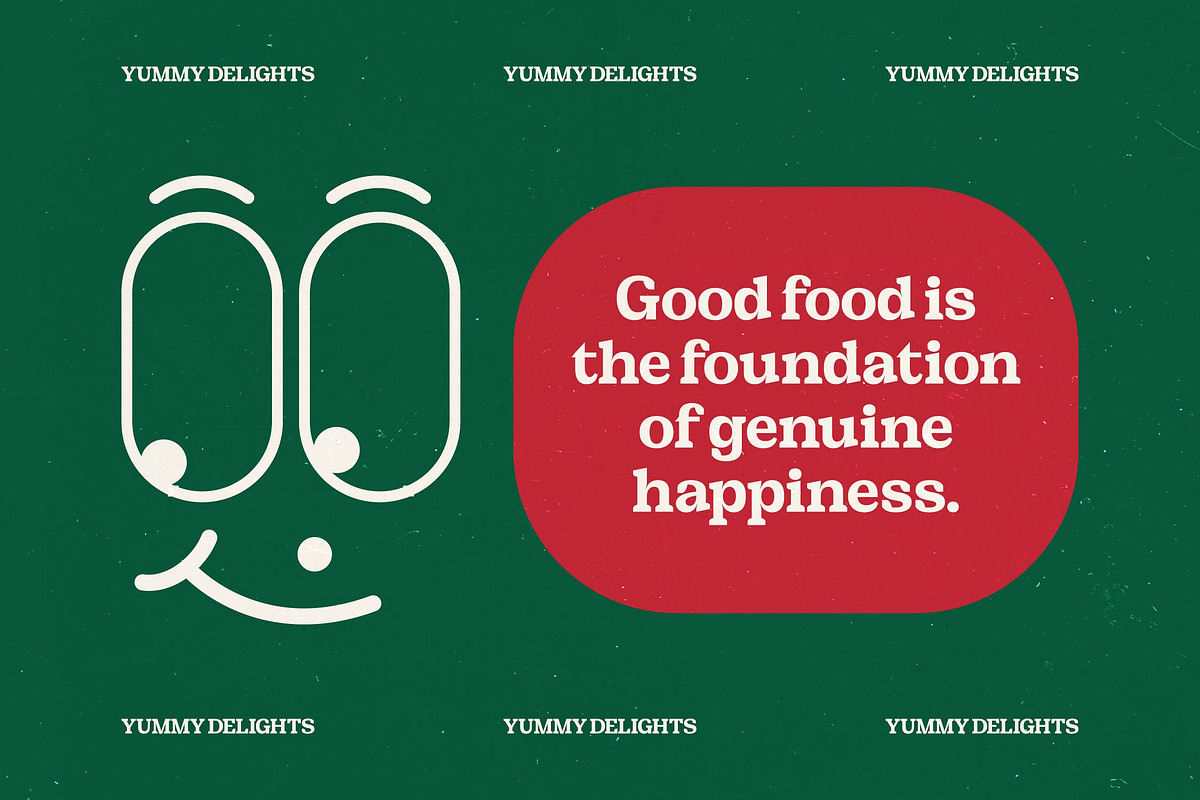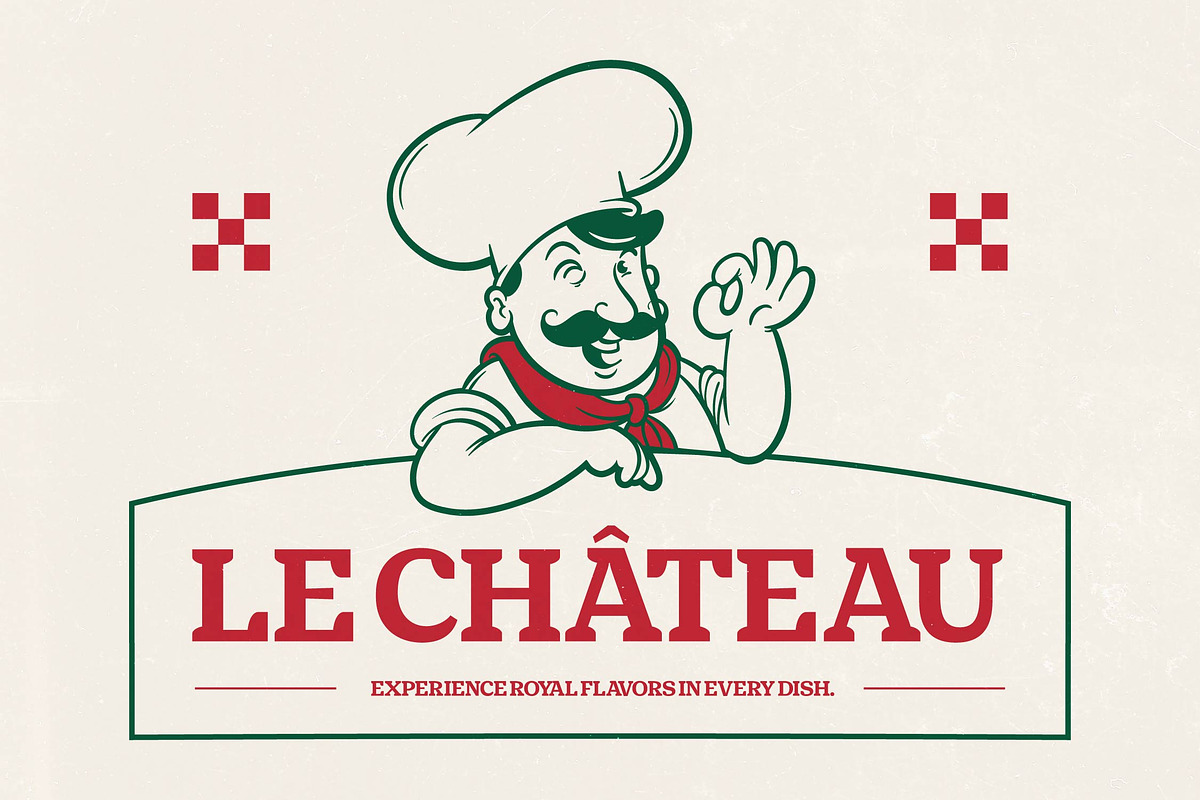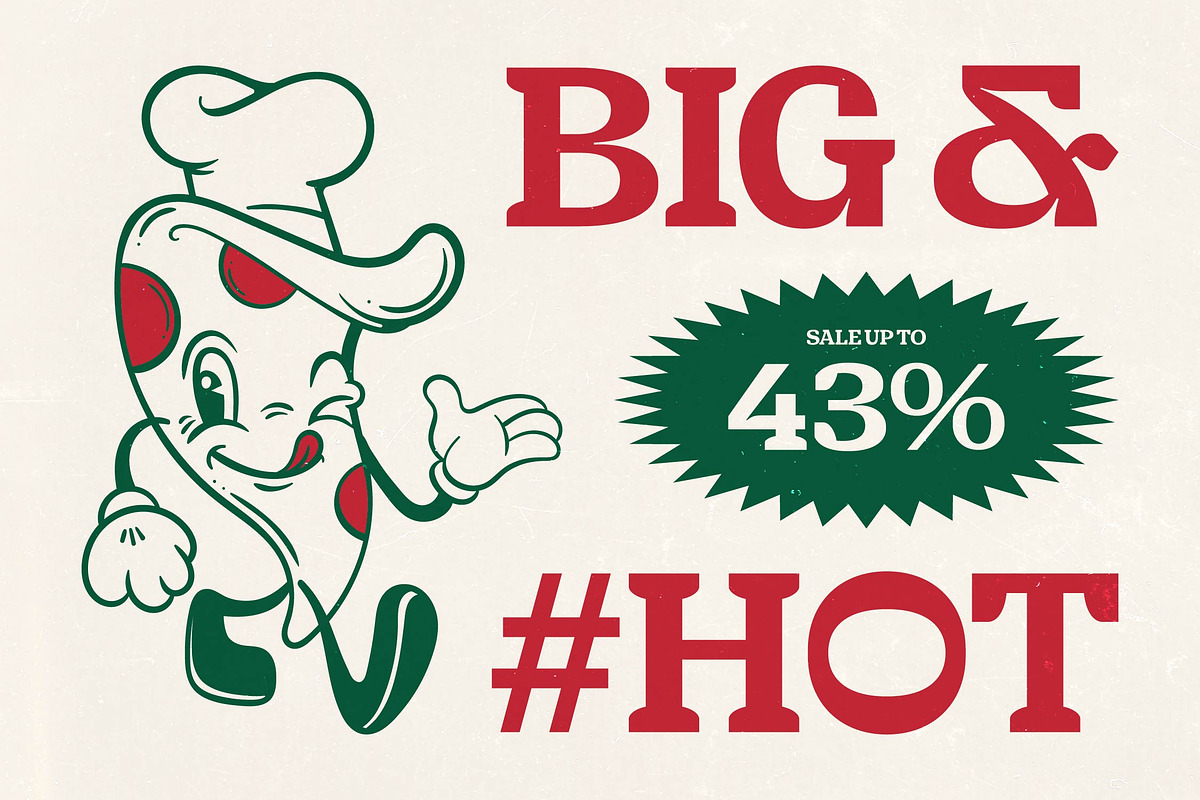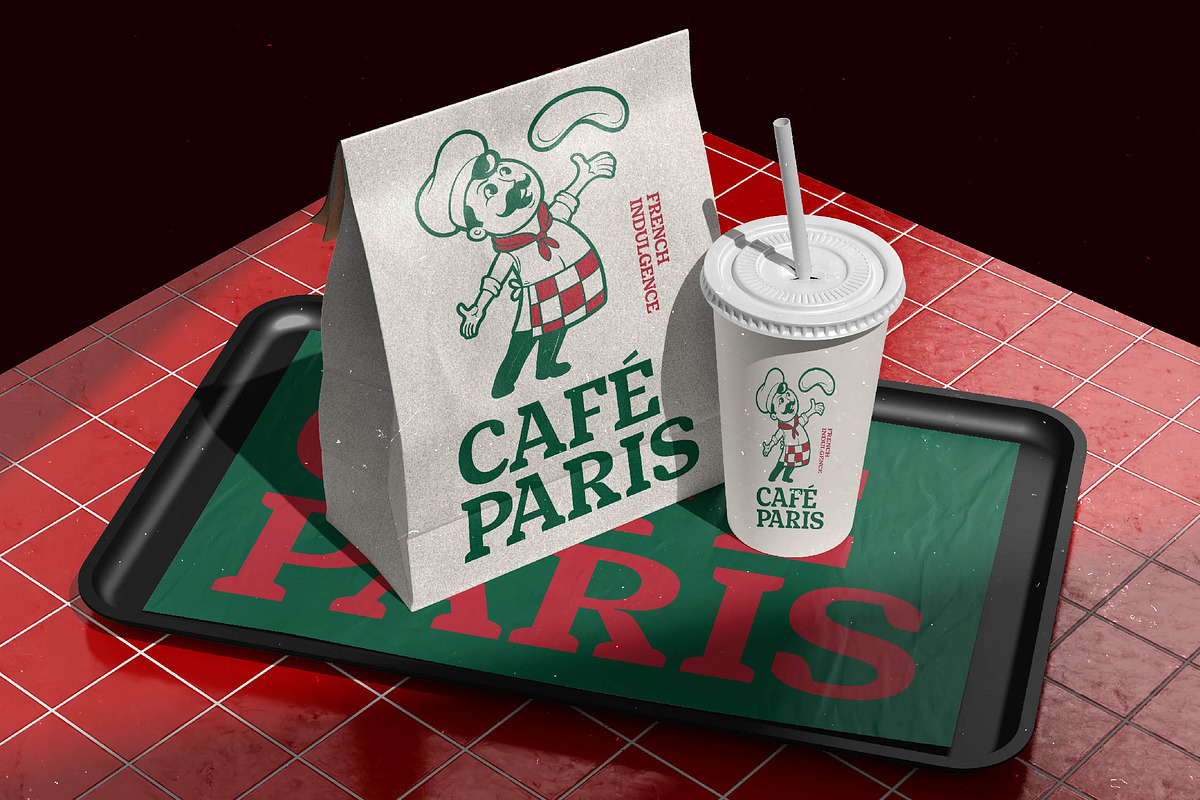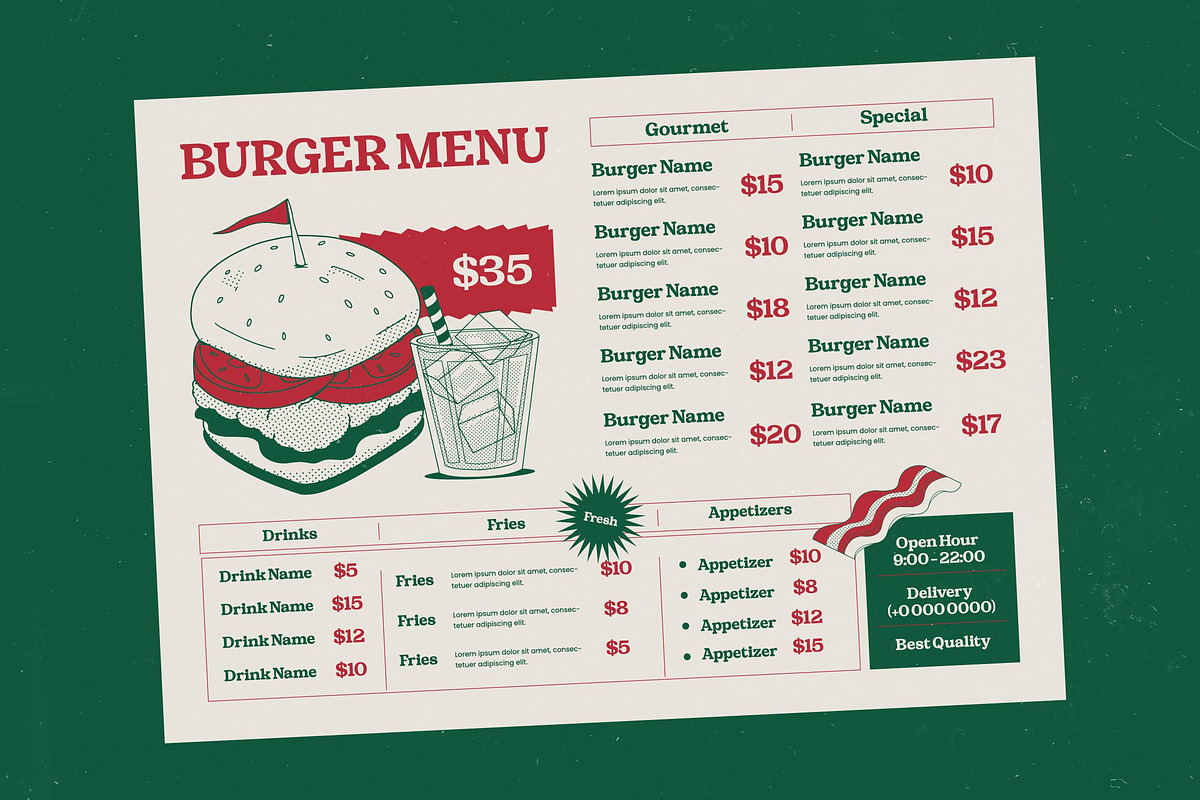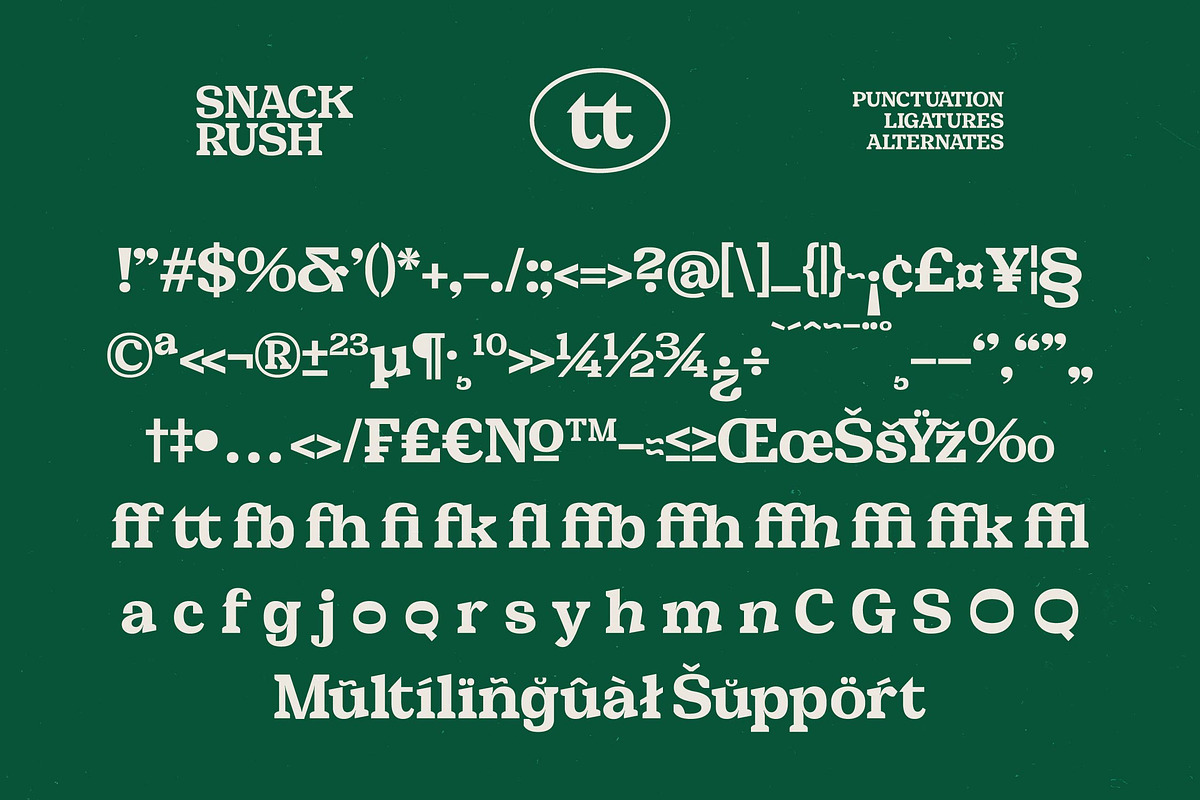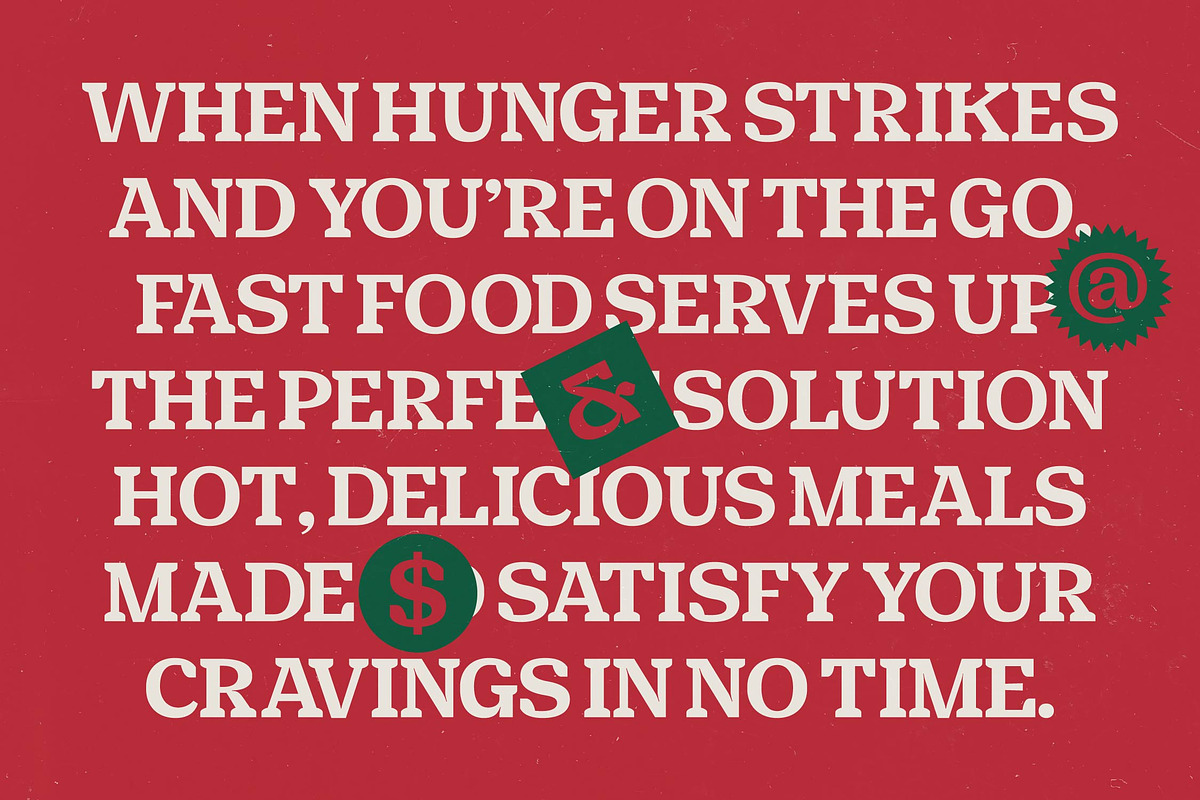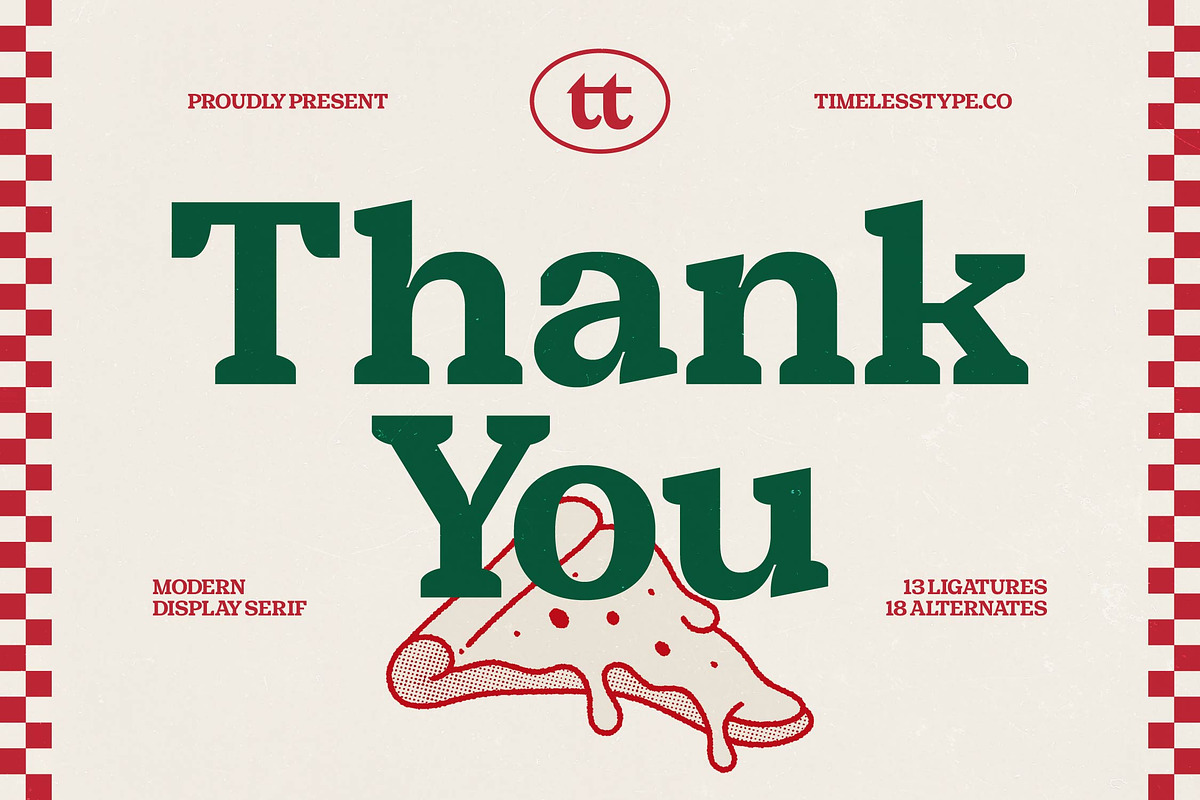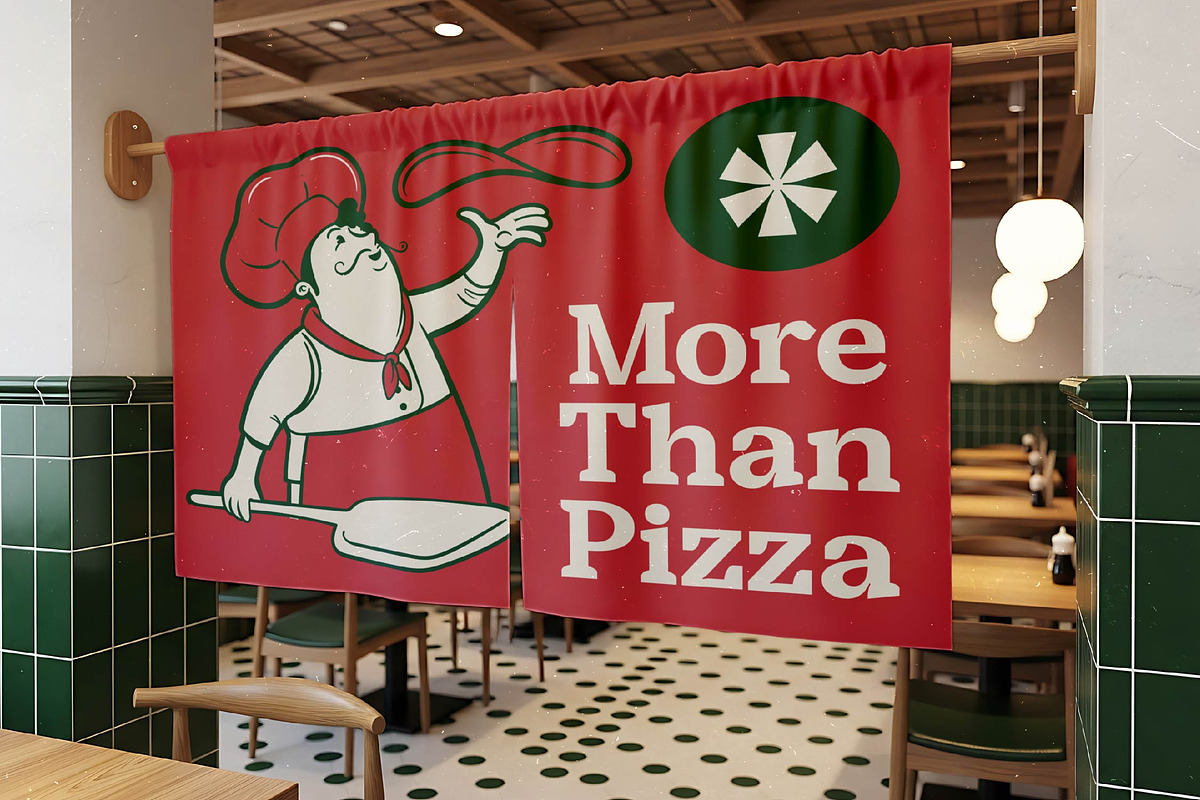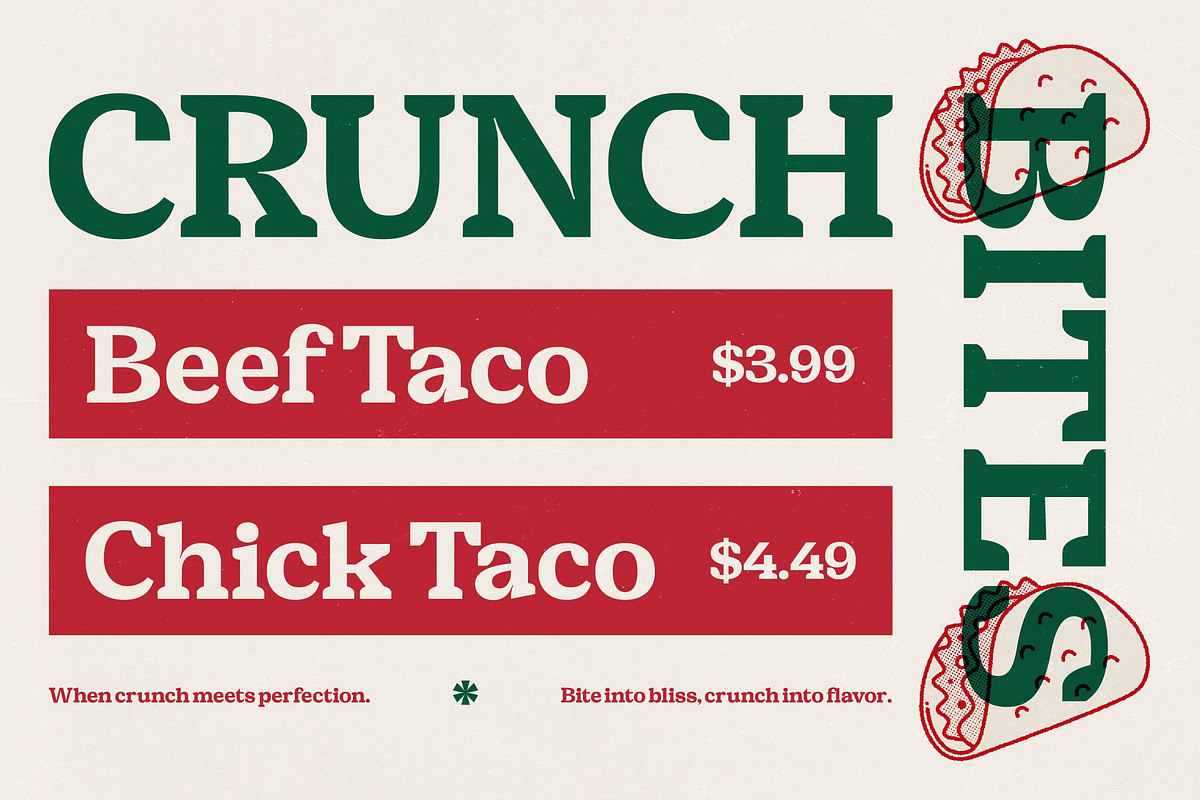
Snack Rush Modern Retro Serif
Snack Rush is a feast for the eyes, blending high-energy retro aesthetics with sophisticated modern craftsmanship. This font is designed to make an instant impact, turning every word into a bold statement of style and flavor.
Inspired by the vibrant world of vintage diners and classic snack packaging, Snack Rush captures the nostalgia of the mid-century food scene. It channels the spirit of fast-paced urban life and the comforting familiarity of a local pizzeria, updated with clean lines for the contemporary creator.
This modern serif display balances chunky proportions with elegant curves, delivering a unique luxury typography feel that remains approachable. It provides a massive branding impact while maintaining the refined qualities of an editorial font, ensuring your message is both loud and incredibly polished.
As the modern serif trend continues to dominate high-end visual identities, Snack Rush stands out by offering character-driven typography that breaks away from sterile minimalism. It perfectly fits the current wave of editorial display fonts that prioritize personality and warmth over cold geometric shapes.
From high-impact logo design to cohesive brand identities, this typeface excels in branding environments that require a touch of retro flair. It is a dream for food packaging, trendy editorial layouts, and even luxury fashion campaigns or high-end wedding invitations that want to break tradition.
The font is packed with creative possibilities, including a suite of ligatures and alternates that allow for custom-tailored headlines. Full multilingual support and a wide array of international characters ensure your designs can reach a global audience without losing their distinct character.